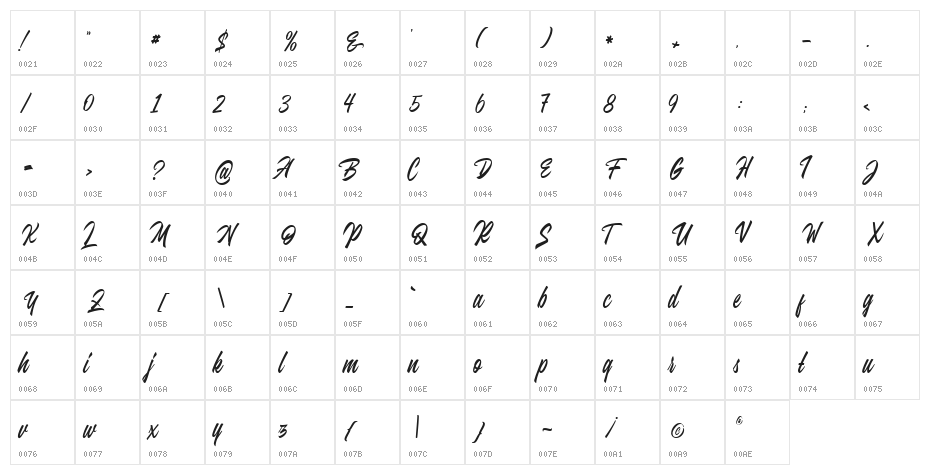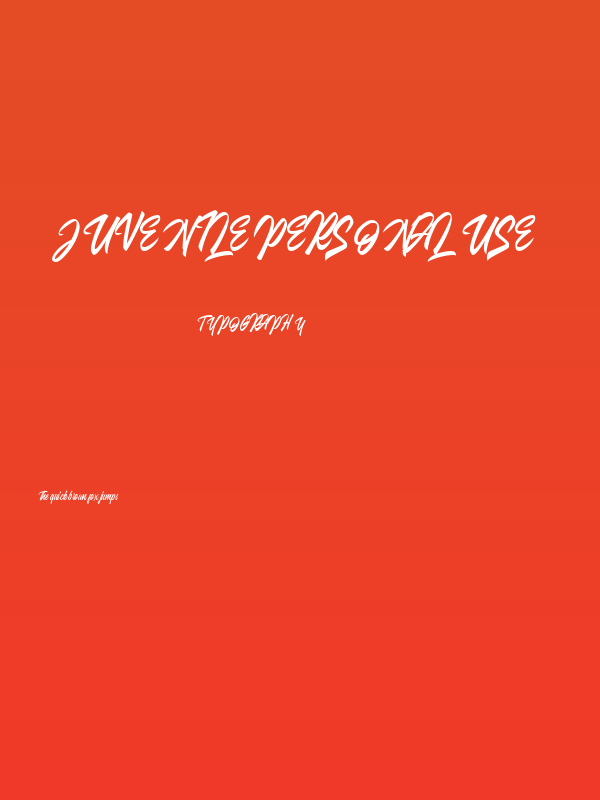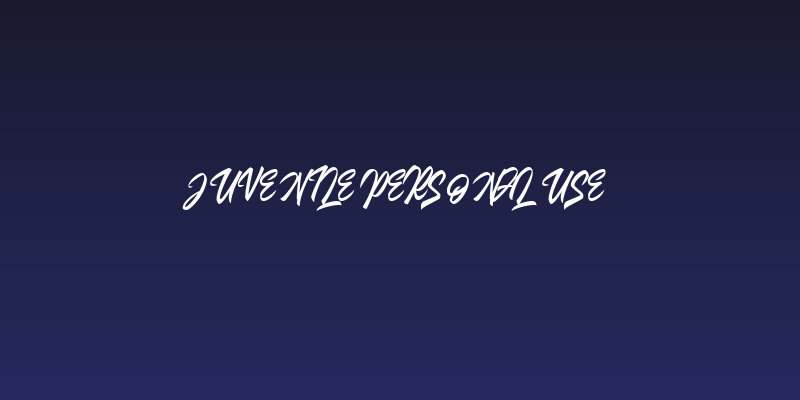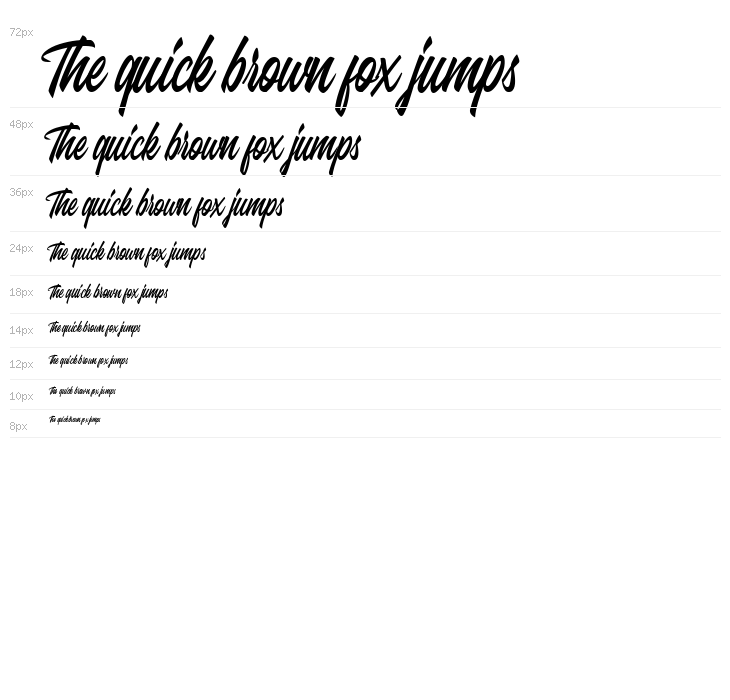
Juvenile personal use Font
Juvenile personal use Description
This font exhibits a dynamic and flowing script style, characterized by its elegant and cursive letterforms. The uppercase letters are bold and slightly slanted, giving a sense of movement and fluidity. The lowercase letters maintain a consistent flow, with smooth connections between characters. The numerals and special characters are designed to complement the overall script style, maintaining the same slanted and cursive appearance. This font is ideal for projects that require a personal and artistic touch, such as invitations, greeting cards, or branding materials.
| Proposed Projects | Ideal for invitations, greeting cards, branding materials, and artistic projects. |